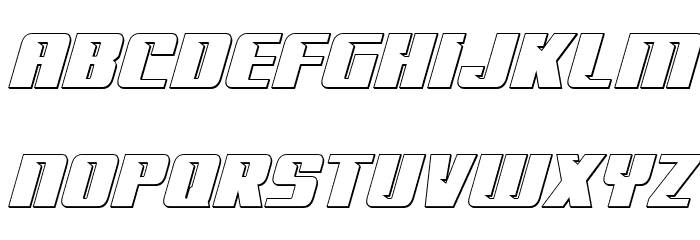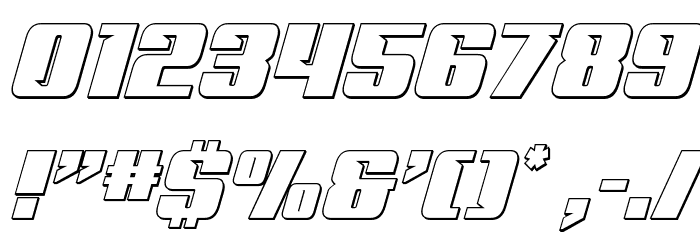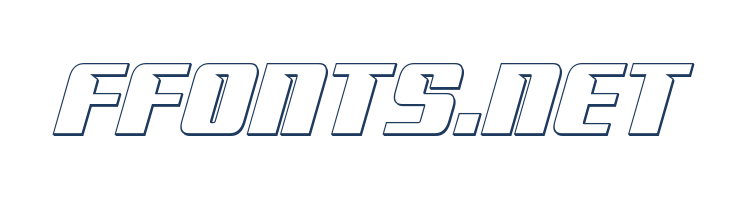
'89 Speed Affair Outline Ital Font
This font features a bold, outlined style with a distinctly modern and dynamic appearance. The characters are italicized, giving a sense of motion and speed, which is further emphasized by the sharp angles and clean lines. The uppercase and lowercase letters maintain a consistent height, contributing to a uniform look. The numerals and special characters follow the same design principles, ensuring a cohesive appearance across all glyphs. The outline effect adds a layer of depth, making it suitable for eye-catching designs.
A bold, outlined, italic font with a modern, dynamic style.
- Font: '89 Speed Affair Outline Ital
- Proposed Projects: Ideal for sports branding, automotive designs, posters, and dynamic advertising materials.